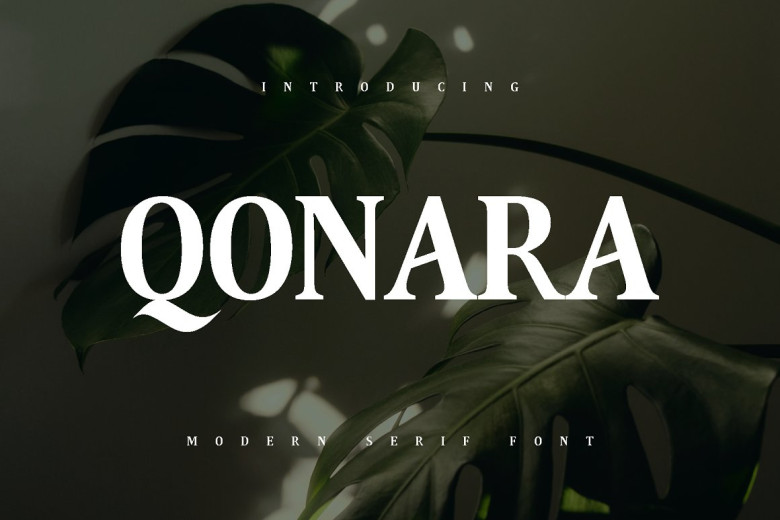
Qonara Font
Introducing Qonara, simple and modern serif fonts. For you, especially need choose the characteristics of the fonts for the design of logos, magazines, for social media, brochures and more.
Qonara Serif Font